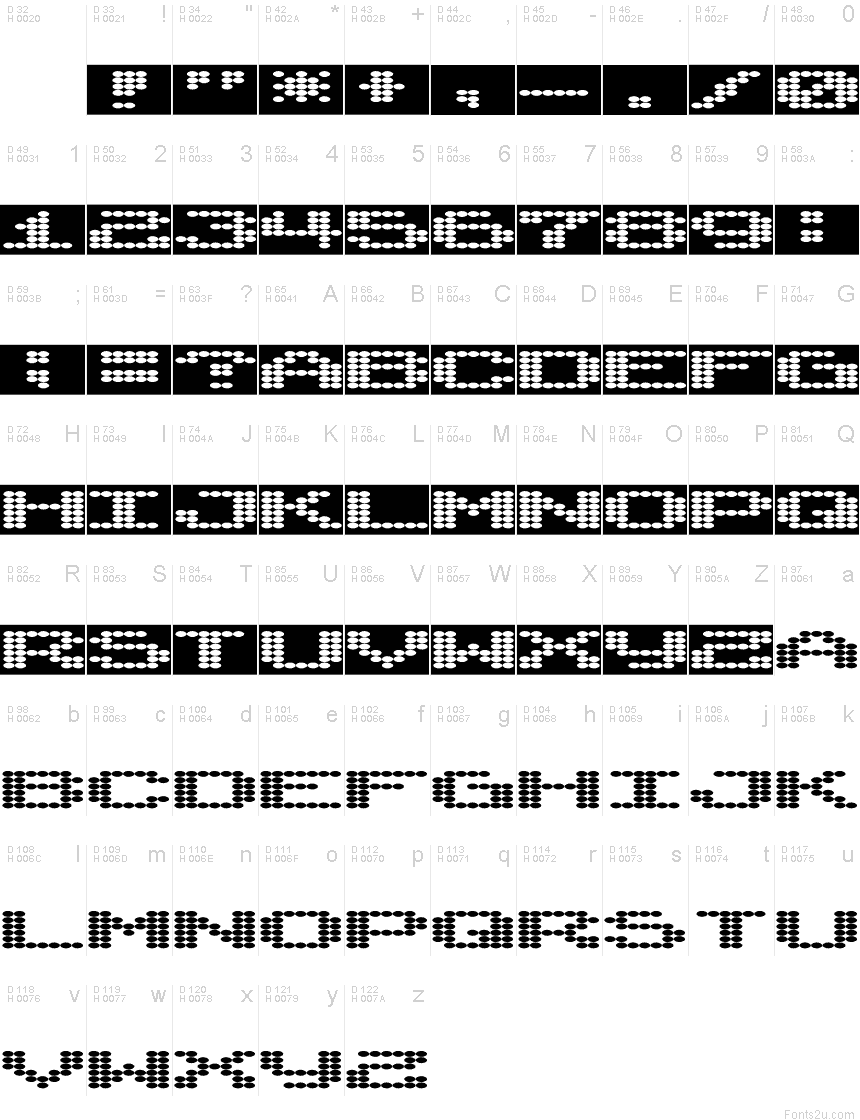
SyntheticSyncronism
Synthetic Syncronism by Jakob Fischer is a free dot-matrix digital display font with a playful retro-tech pulse. The letters are built from rows of rounded oval modules, giving the font the feel of an old scoreboard, LED sign, or early computer graphic, but with a softer, more upbeat rhythm than a strict grid.
It fits naturally into poster headlines, arcade-themed branding, music artwork, event flyers, and title cards where that modular bounce can carry the mood. As a free font, it also works well for short logos or interface-style labels, especially when you want the lettering to read like illuminated pixels rather than plain geometric type.